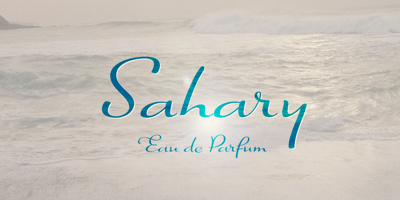
Introducing Anguilla Signature Font Free Download, a modern and elegant handwritten typeface designed by Alpaprana Studio. This font exudes a natural and contemporary feel, making it perfect for branding, logo design, lettering, clothing, posters, magazines, packaging, and more. Its graceful curves and fluid strokes add a personal touch to any project, enhancing its visual appeal. Download Anguilla Signature Font Free Download to explore its features in personal projects. For commercial use, please ensure you purchase the appropriate license. Elevate your designs with the sophisticated charm of Anguilla Signature Font Free Download